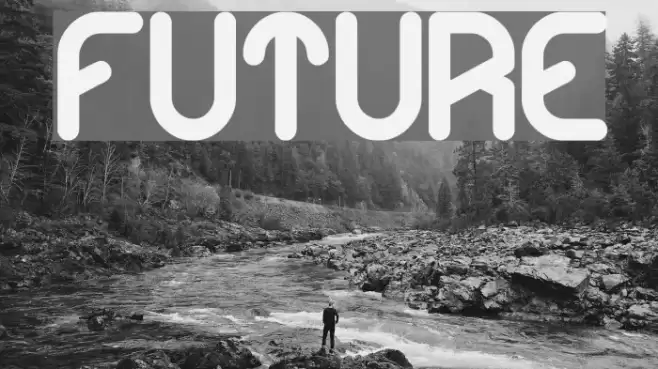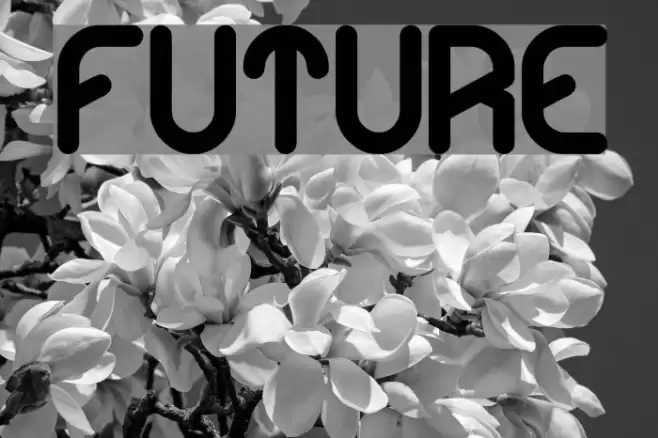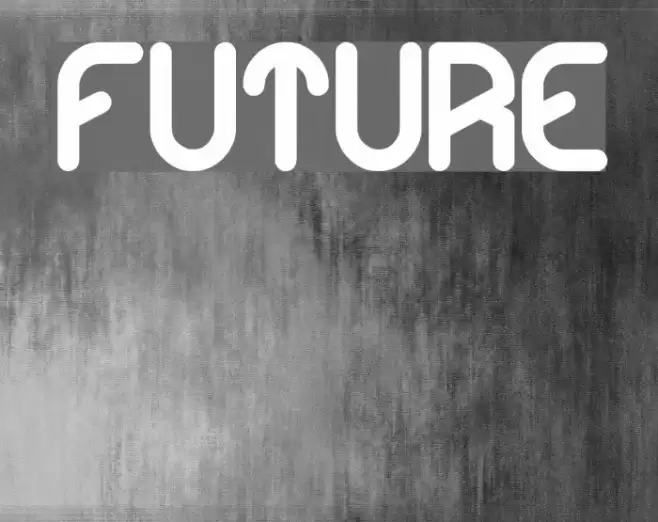
future Font
future Description
This font features a bold, rounded style with a futuristic and modern aesthetic. The characters are uniformly thick, creating a cohesive and solid appearance. The rounded edges and consistent stroke width give it a friendly and approachable feel, while the geometric shapes add a sense of precision and clarity. The font maintains a uniform height across all characters, enhancing its clean and structured look. It is particularly effective for creating a strong visual impact, making it suitable for headlines and display purposes.
A bold, rounded font with a futuristic and modern aesthetic from Uncategorized fonts.
- Proposed Projects: Ideal for tech branding, futuristic designs, video game titles, and modern advertising campaigns.